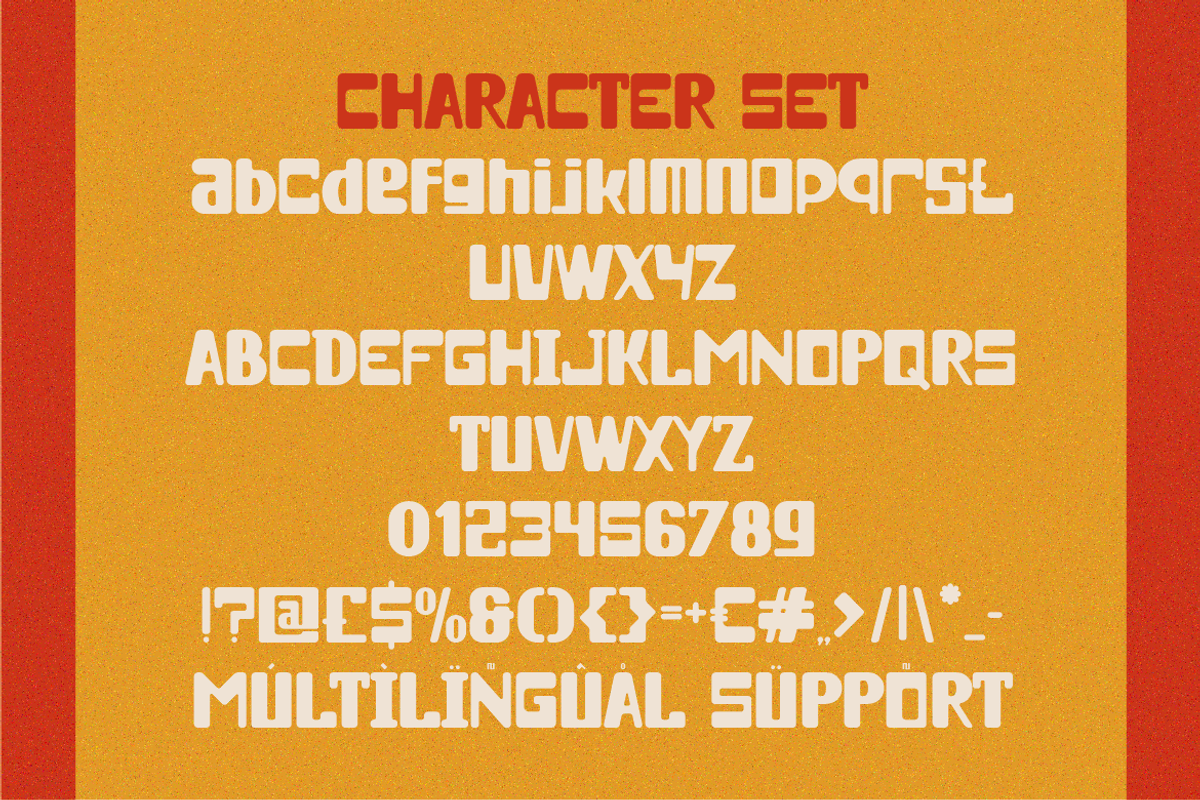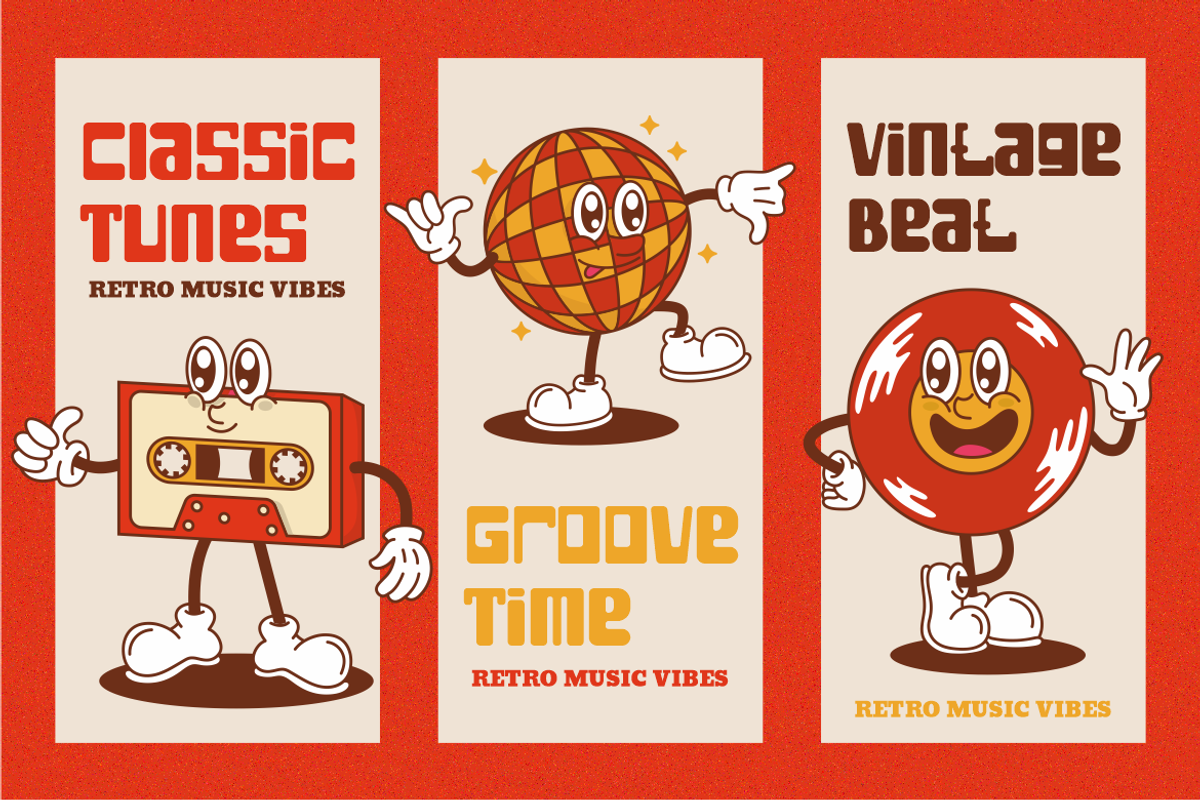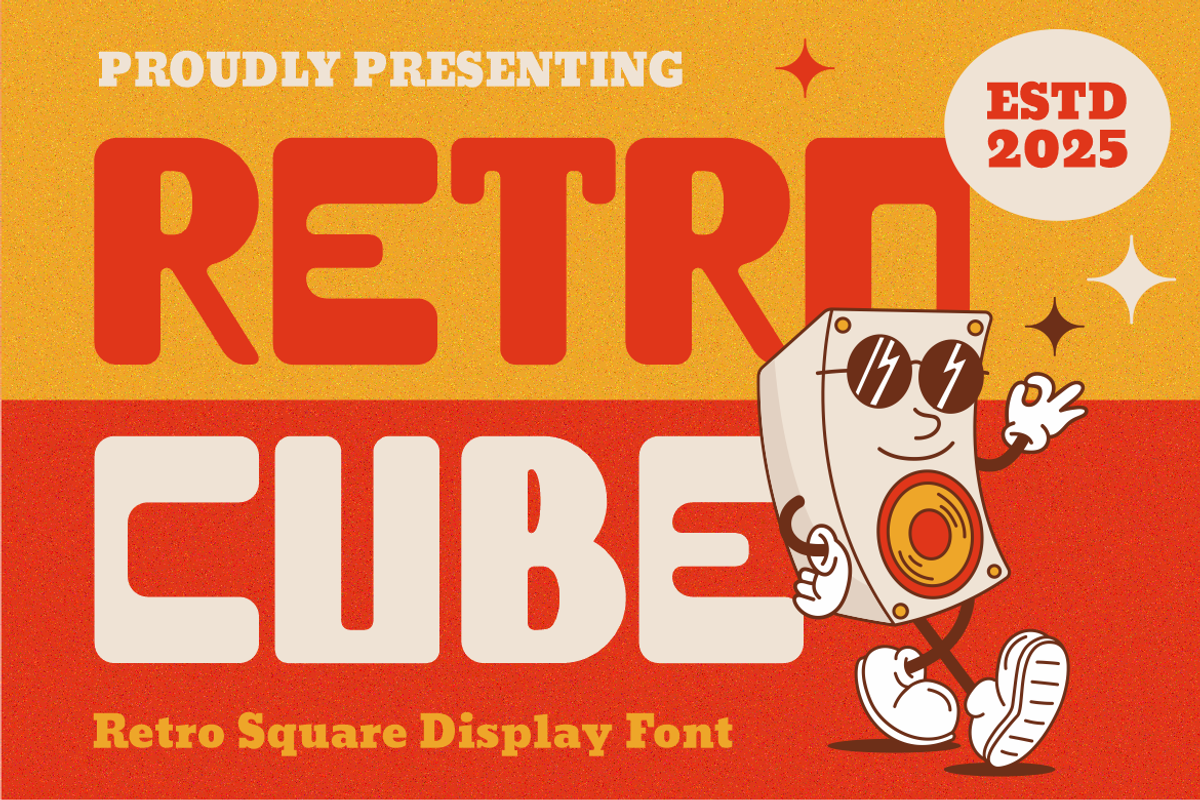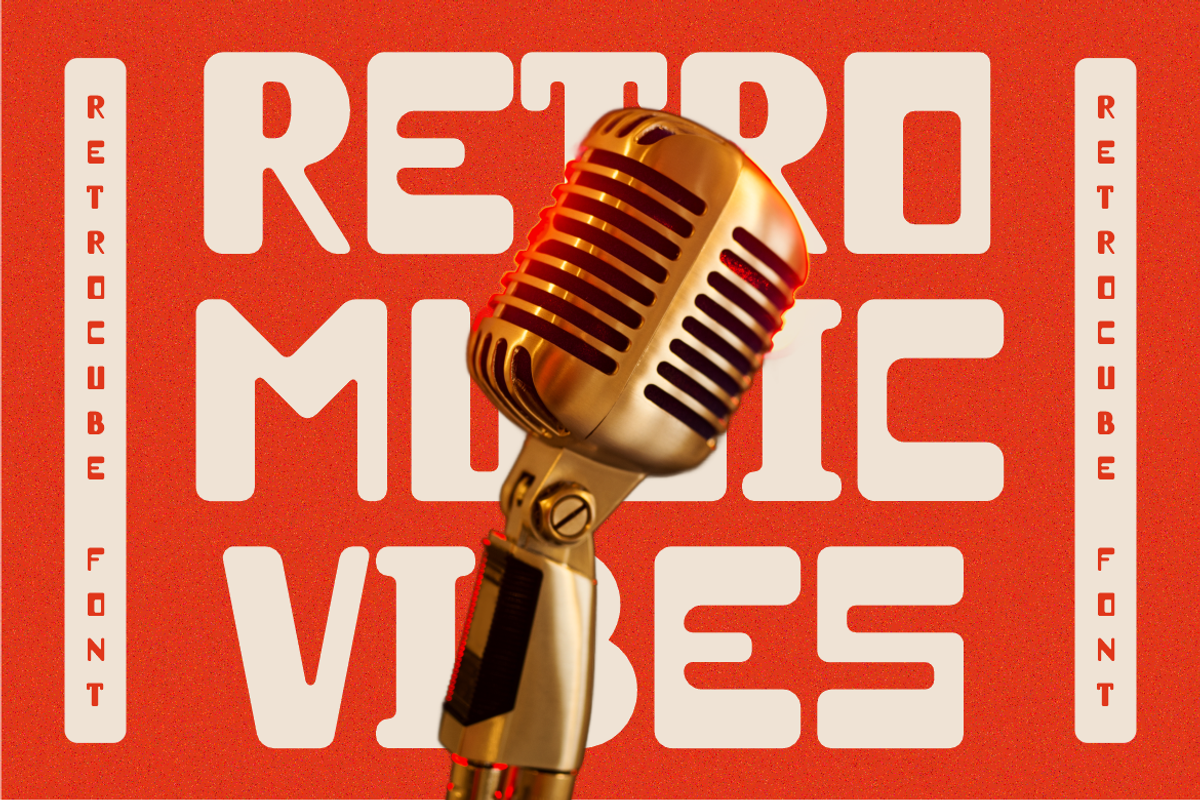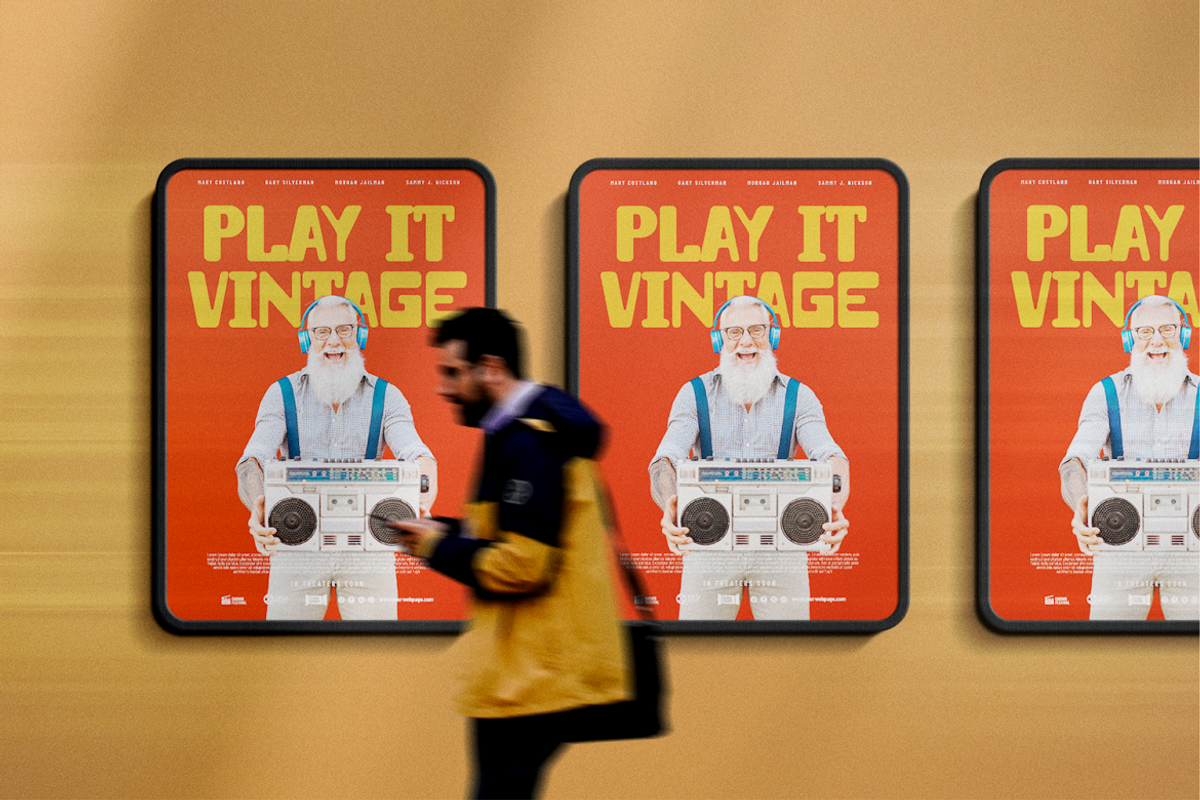
Retrocube Retro Square Display Font
Retrocube Retro Square Display Font is a bold display typeface built on strong square geometry and confident proportions. Each character appears wide, stable, and visually grounded, creating an immediate sense of strength and clarity. The strokes are thick and consistent, with minimal contrast that keeps the letterforms solid and highly legible. Corners feel firm yet friendly, while rounded inner spaces soften the structure and prevent the font from feeling rigid. The overall height is balanced, with slightly condensed spacing that helps headlines look compact and powerful. This structure creates a clean rhythm across words, making text feel cohesive and intentional. Retrocube Retro Square Display Font delivers a classic retro personality without looking outdated. It blends vintage inspiration with modern construction, resulting in a timeless display font that feels familiar yet fresh. The design supports multilingual characters, numbers, and punctuation, allowing flexible use across many design needs. This font suits designers who want bold presence without visual noise.
Retrocube Retro Square Display Font works best in projects that require instant attention and a confident tone. It is well suited for logos, branding systems, advertising headlines, posters, packaging, and editorial titles. The strong shapes perform especially well at large sizes, where the geometry becomes a key visual element. At the same time, spacing and proportions remain controlled, so words stay readable and professional. This font fits retro themed brands, classic music visuals, creative studios, and lifestyle products that value personality. It also performs well in business branding that wants a friendly but authoritative voice. Use Retrocube Retro Square Display Font for film titles, magazine covers, stickers, book covers, greeting cards, and crafted typography layouts. Designers can rely on its consistency to build bold layouts while keeping a clean and organized appearance.